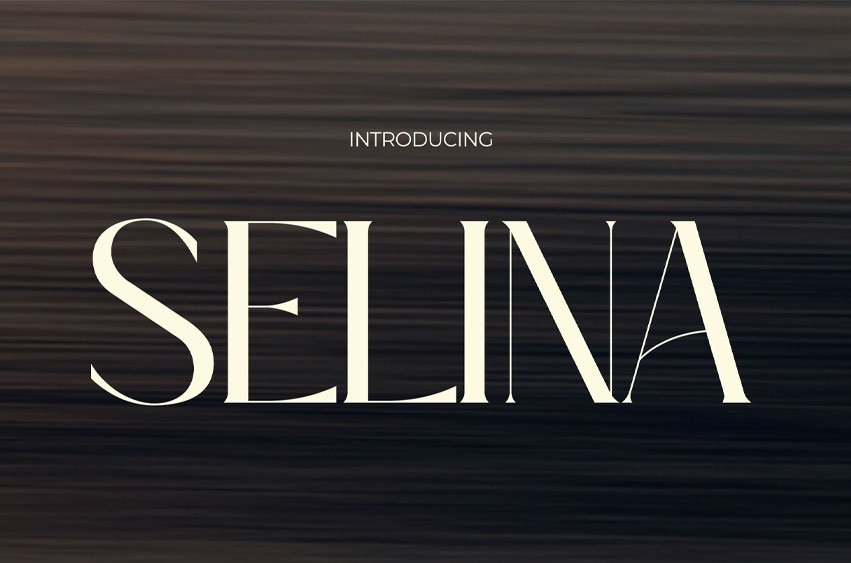
Selina Font High-contrast serif font with graceful strokes for elegant branding and modern editorial design Selina blends fashion-forward aesthetics with timeless elegance through its tall letterforms, sharp terminals, and smooth transitions. This modern serif carries a confident, luxurious tone ideal for projects that require both style and sophistication. Its graceful rhythm and stylish proportions give Selina a bold yet feminine character that feels at home in fashion magazines, beauty brands, and minimalist packaging.
From runway-themed campaigns to clean skincare packaging, Selina adds a layer of elegance and clarity. Its structured form and expressive rhythm deliver standout typography that’s easy to read and striking on large-scale materials—whether you’re designing high-end editorial spreads, brand identities, product labels, or social media graphics. Let your message exude clarity and sophistication.
Key Features Perfect for luxury branding and elevated editorial tone:
- Fashionable serif with sharp contrast and slender curves
- Ideal for fashion branding, magazine titles, boutique packaging, and minimalist design
- High legibility for large display text with sophisticated personality
- Balances boldness with visual grace and structural elegance